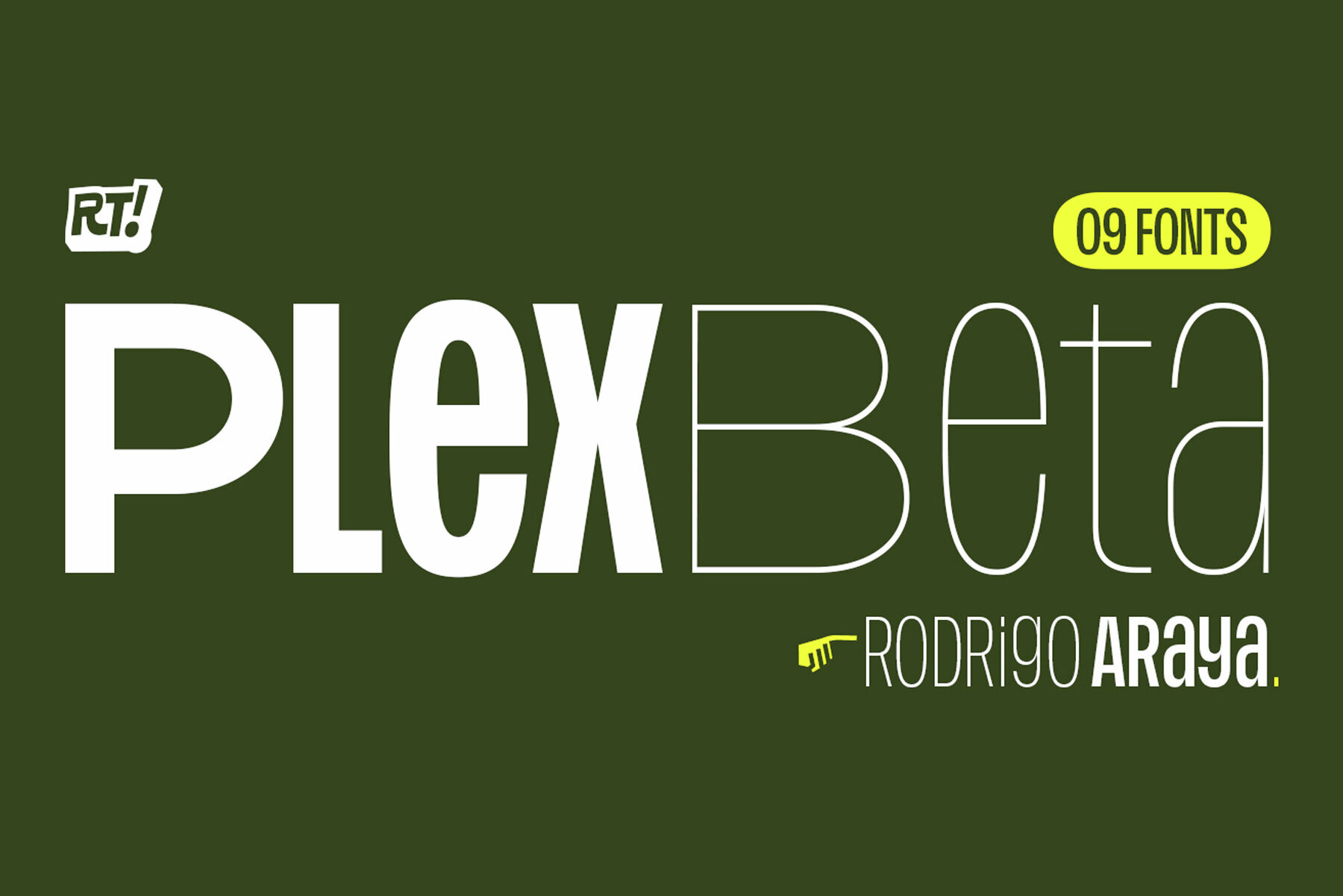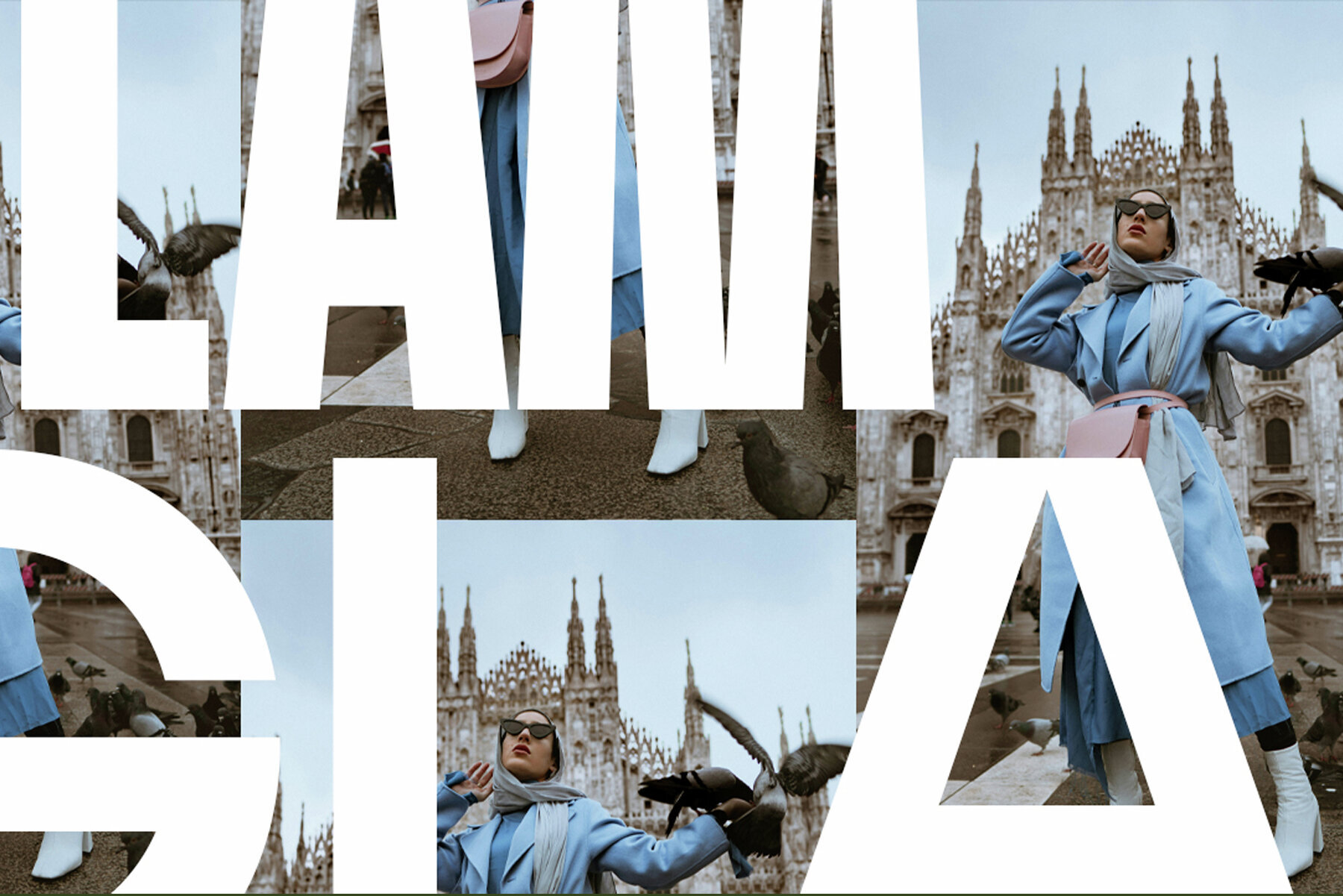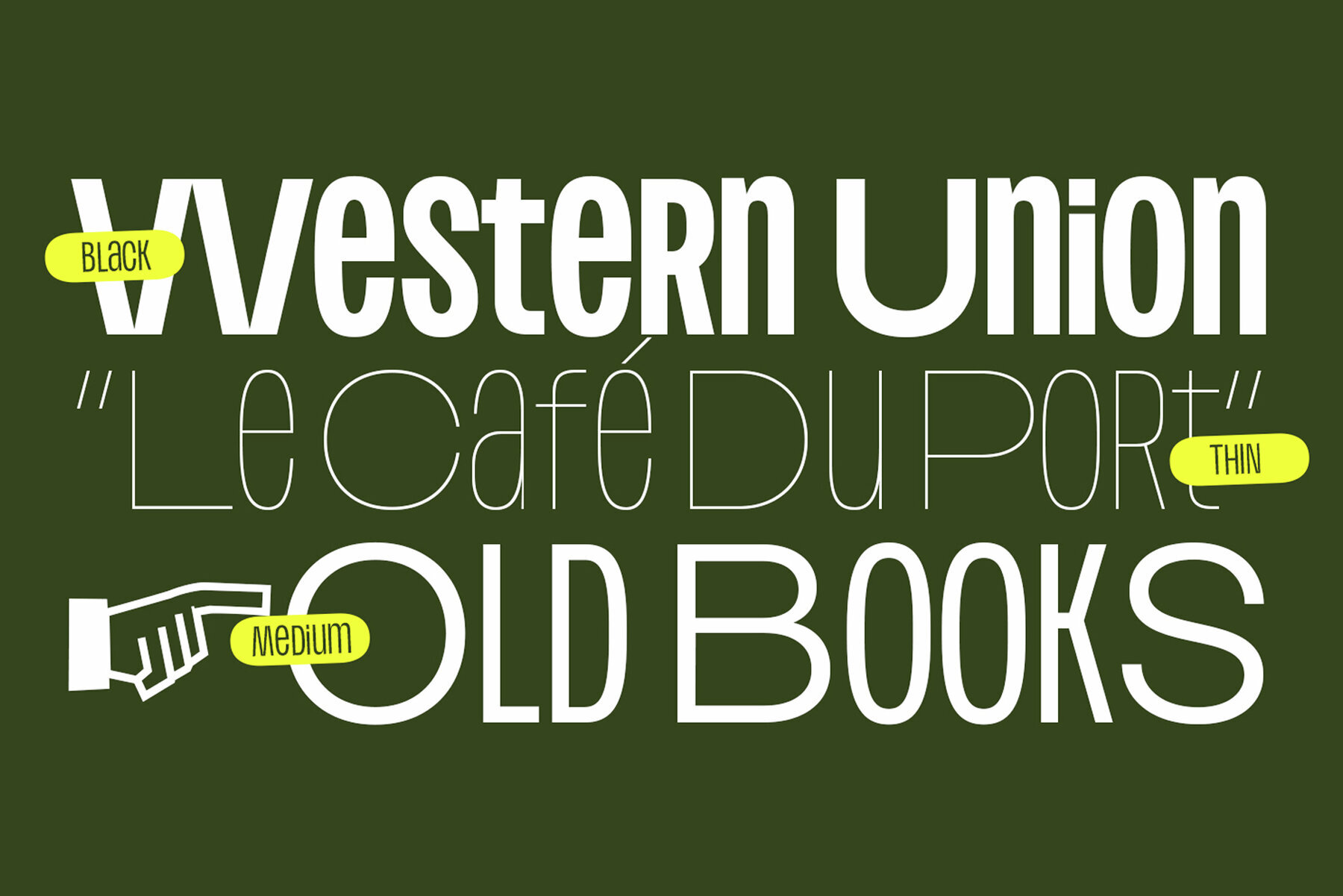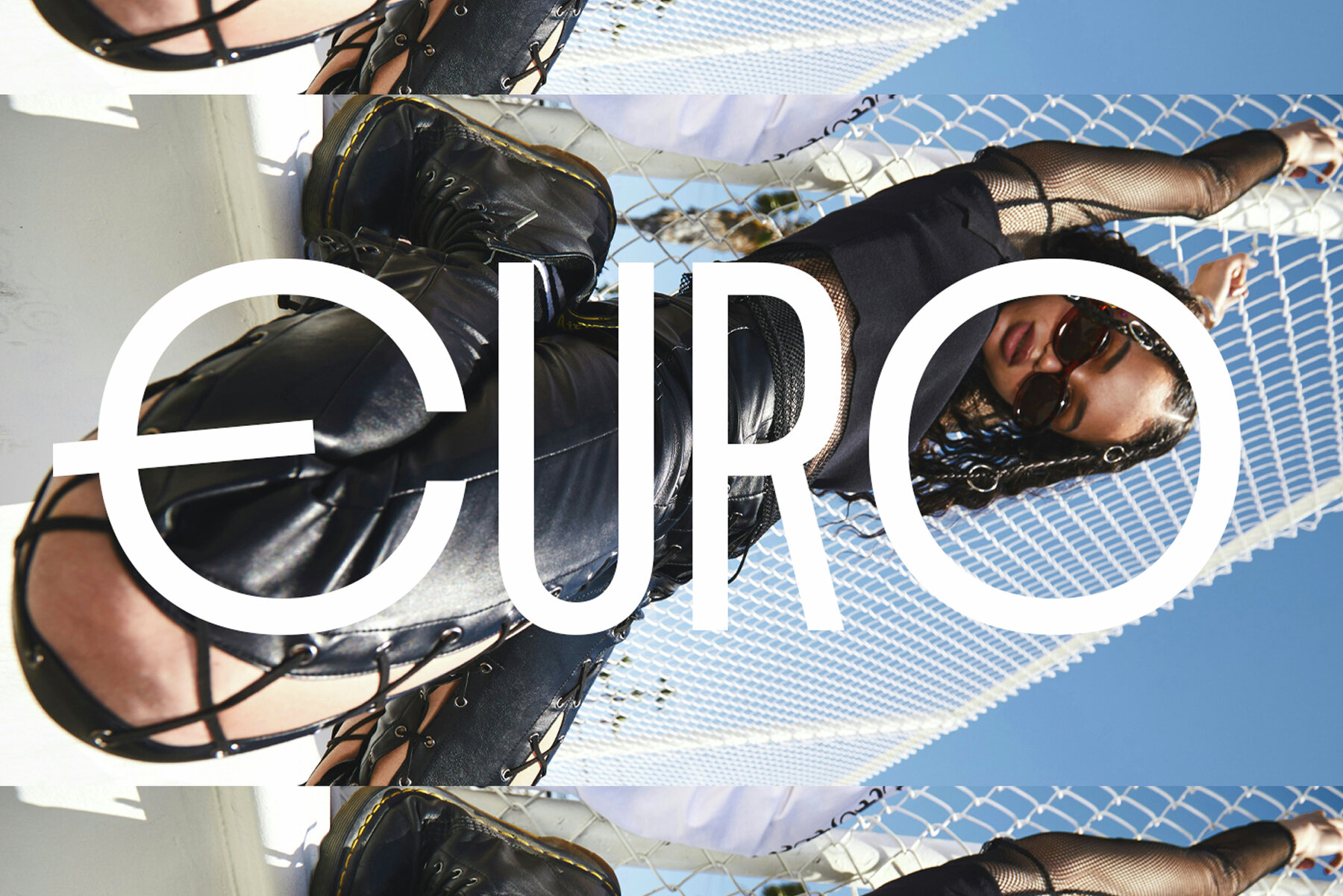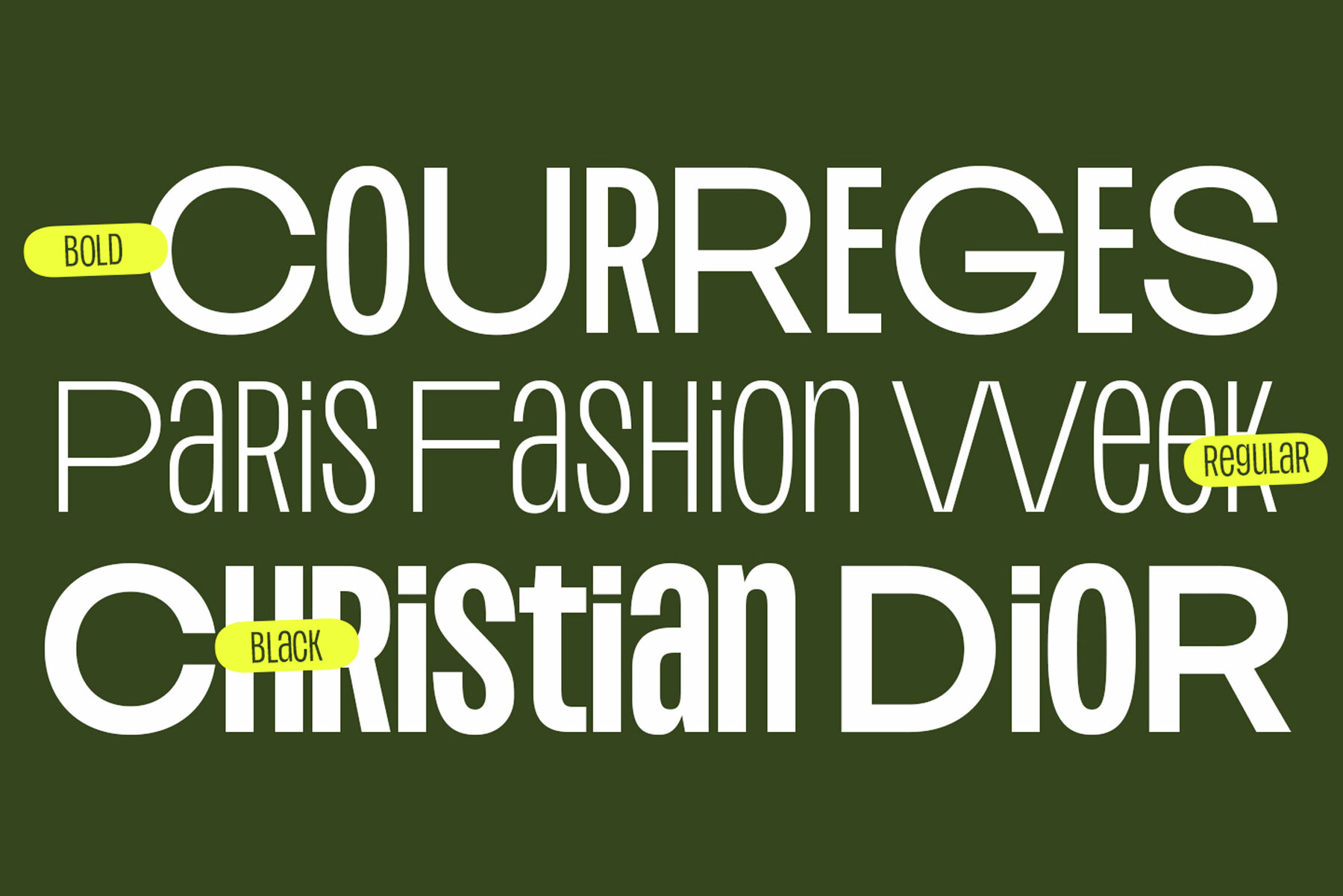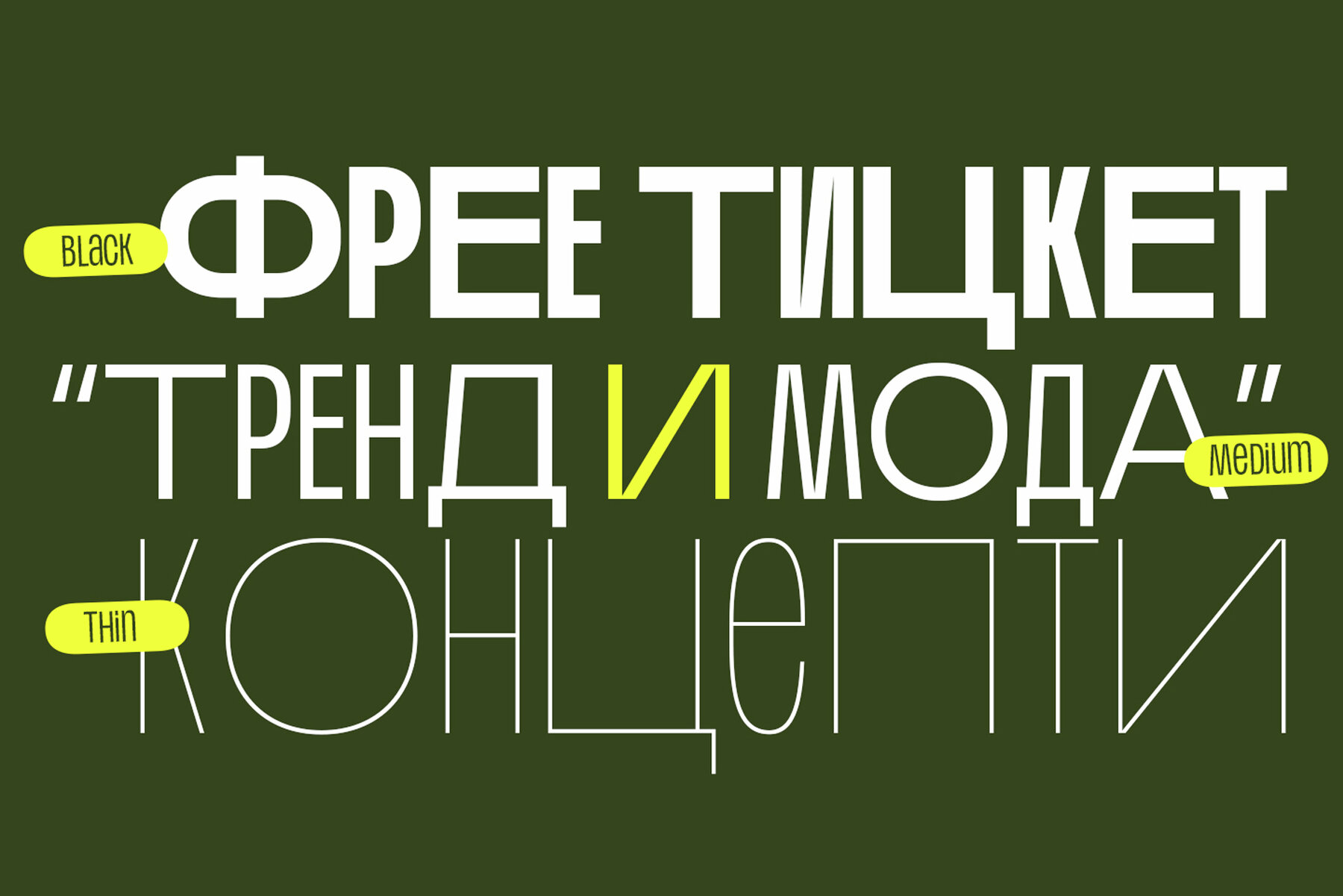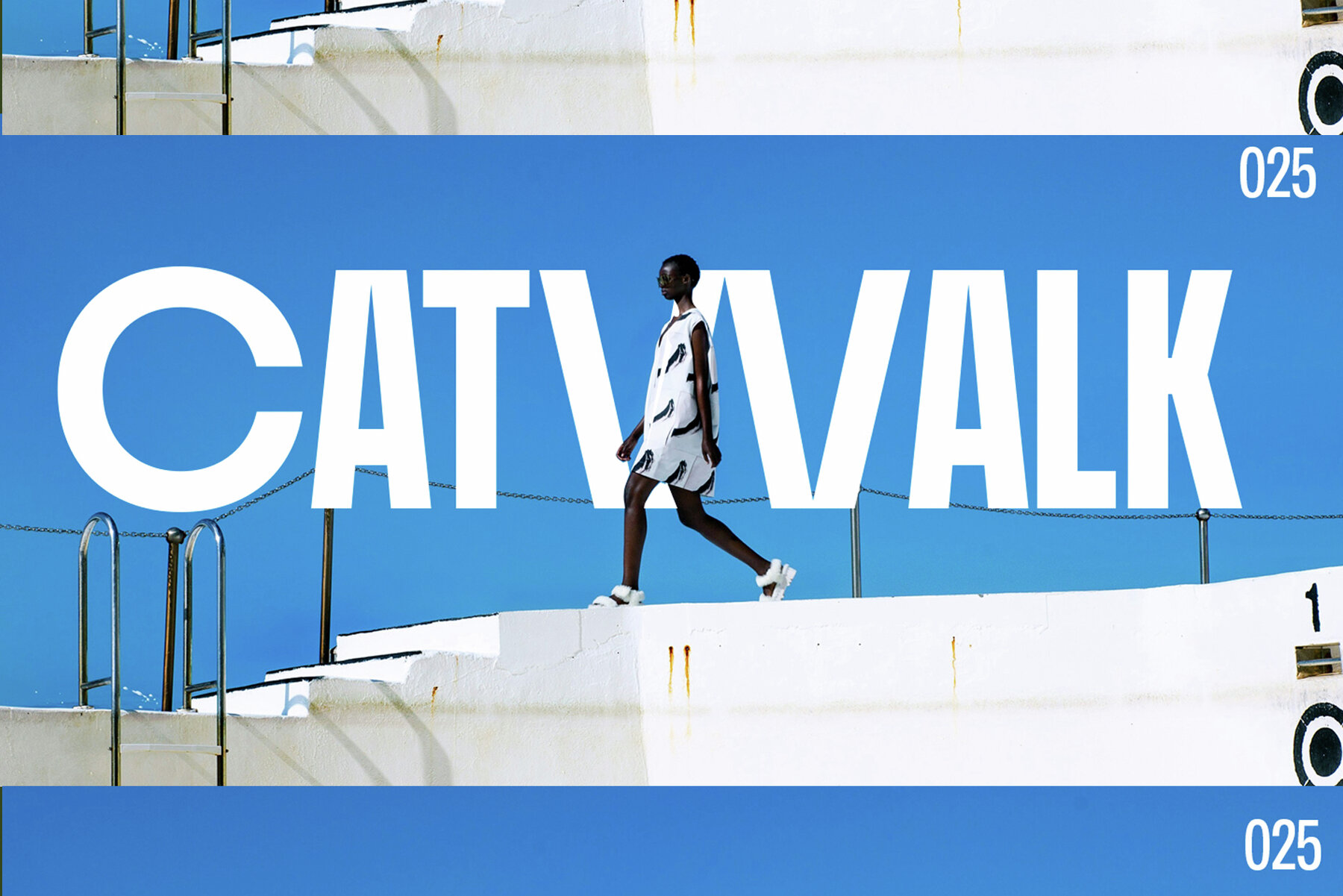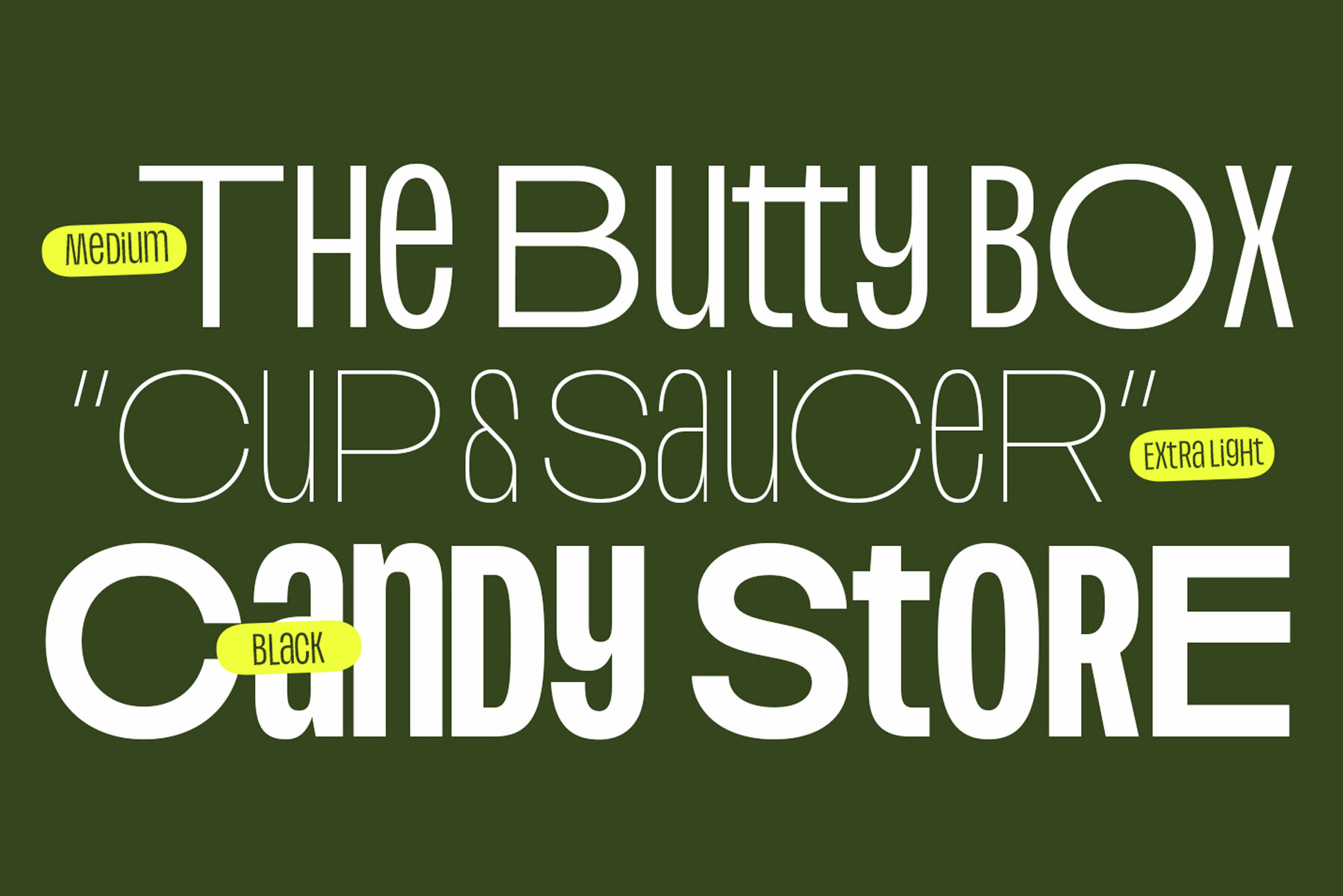
Plex Beta Font
The Plex Beta typeface family boasts 9 distinct styles that add an engaging flair to any title. It offers capitalized alternatives, providing flexibility for captivating designs. This clean sans serif typeface includes the full Cyrillic alphabet, making it suitable for a broader range of multilingual projects. Its crisp, modern characteristics make Plex Beta an excellent choice for impactful titles and headings.Plex Beta: A Versatile Sans Typeface